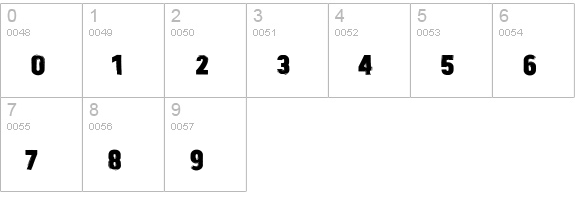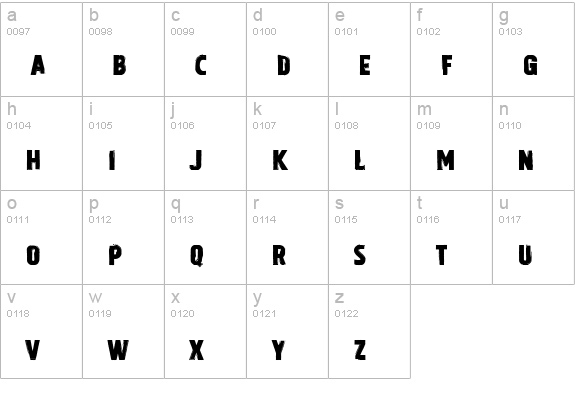
Tolyer X Petroleum font is a sleek and modern typeface designed for a wide range of applications, from branding to editorial design. Its sharp edges and clean lines give it a professional and sophisticated look that will make your projects stand out. This font is perfect for creating impactful headlines or adding a touch of elegance to your designs. The best part? Tolyer X Petroleum font is available for free download at FontsMarket.com. You can easily access this stunning typeface and use it in your personal or commercial projects without any cost. Don't miss out on the opportunity to enhance your designs with this versatile and stylish font. Download Tolyer X Petroleum today and take your typography to the next level.